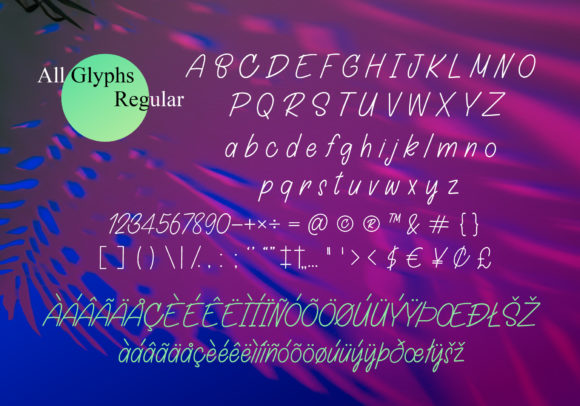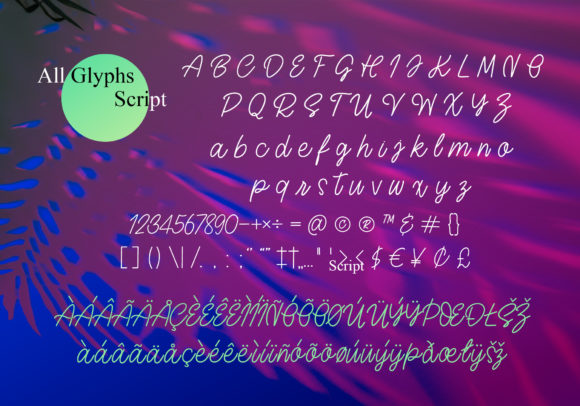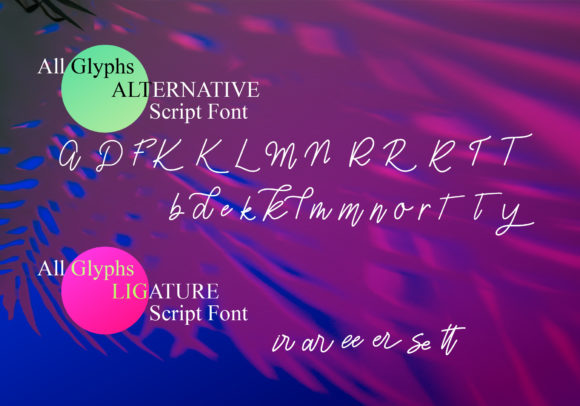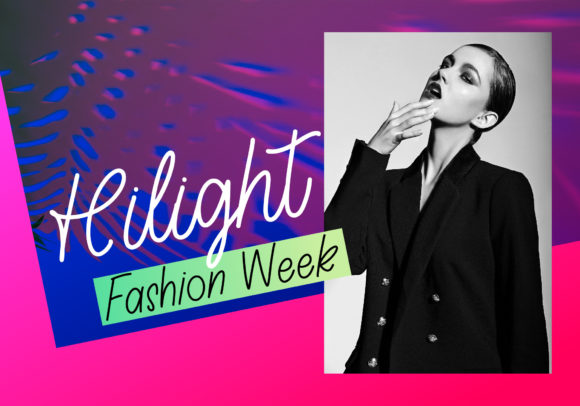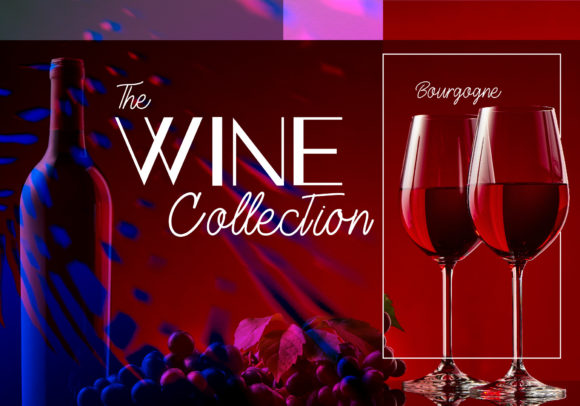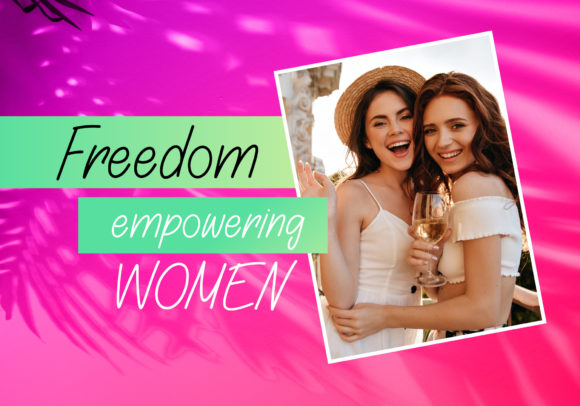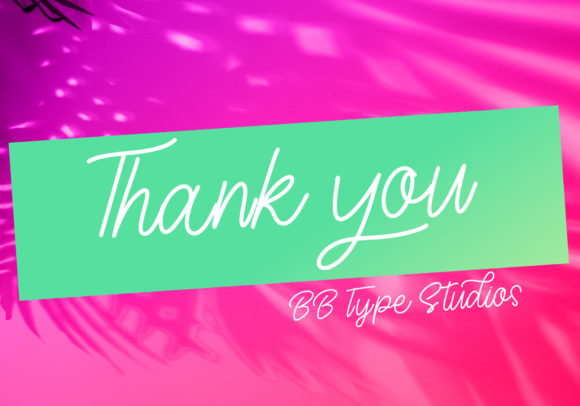
Sett Fire Font
About Sett Fire Font
Sett Fire is an exquisite and slender handwritten font that flows freely like flames dancing in the wind. With its natural and distinctive style, this font seamlessly complements a wide variety of design concepts. Its effortless elegance and versatility enable it to breathe life into an expansive range of creative projects.
Every stroke of Sett Fire captures the essence of its fluidity, adding a unique touch to your designs. Its slim and graceful appearance infuses your work with an air of sophistication, making it a perfect choice for a multitude of applications. From eye-catching logos and branding materials to captivating social media posts and invitations, Sett Fire brings an authentic and appealing quality to your compositions.
The font’s PUA encoding ensures effortless access to its vast array of glyphs and swashes, allowing you to effortlessly customize and enhance your designs. With Sett Fire as your creative companion, you have the power to ignite your imagination and set your projects ablaze with an enchanting and unforgettable visual presence.